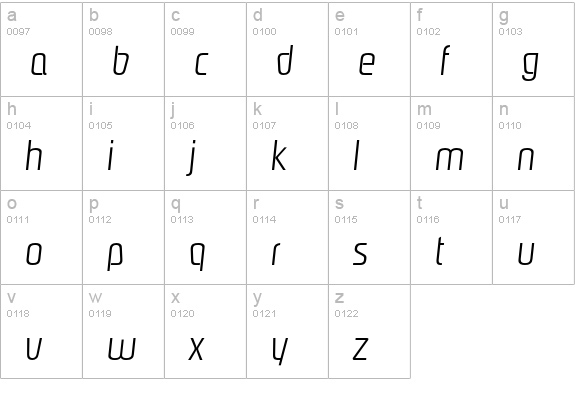
PasadenaEF-LightItalic Font Details
PasadenaEF-LightItalic is a stunning font that effortlessly combines elegance and readability. With its subtle slanted italic style, this font adds a touch of sophistication to any design project. Its delicate curves and sleek lines make it a perfect choice for headings, titles, and body text. This font is not only visually appealing but also highly versatile. It can be used for both digital and print media, ensuring that your message is conveyed with clarity and style. Whether you're designing a website, creating a logo, or crafting a brochure, PasadenaEF-LightItalic will elevate your project to new heights. One of the most remarkable aspects of PasadenaEF-LightItalic is that it is absolutely free. You can freely download this font from FontsMarket.com, a trusted source for high-quality fonts. This means that you can enhance your designs without any extra cost, making it an excellent option for designers on a budget or those who simply appreciate the value of free resources. Don't miss out on the opportunity to incorporate PasadenaEF-LightItalic into your next design project. Its timeless appeal and freely available download make it an essential addition to any font collection. Embrace the elegance and versatility of PasadenaEF-LightItalic and take your designs to the next level.